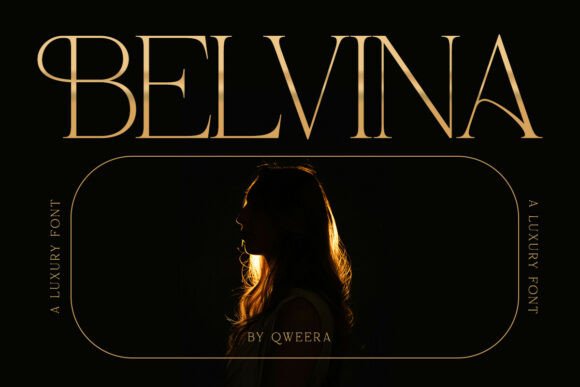
Belvina Font: Elevate Your Brand with Modern Luxury Serif Typography
In the world of typography, a font can make or break the visual identity of a brand. For those seeking to convey sophistication, elegance, and prestige, Belvina Font is an exceptional choice. This refined serif typeface is designed to bring a high-end aesthetic to any creative project, making it perfect for luxury branding, editorial layouts, and sophisticated visual presentations.
Key Features of Belvina Font
- Contemporary Elegance and Timeless Sophistication: Belvina embodies both modern refinement and classic sophistication, making it versatile for various design applications.
- Clean Lines, Sharp Contrast, and Graceful Curves: The font’s design ensures a polished and elegant appearance, suitable for high-end branding and editorial content.
- Sleek Ligatures and Stylish Alternates: With over 20 elegant alternates and classic ligatures, Belvina offers a wide range of creative possibilities for designers.
- Regular and Italic Styles: The font’s versatility is enhanced with both Regular and Italic styles, providing flexibility for different design requirements.
- Multi-Language Support: Belvina supports multiple Western European languages, making it a great choice for global brands.
Ideal Design Applications for Belvina Font
Belvina’s versatility and elegance make it suitable for a wide range of design applications, including:
- Fashion and Beauty Branding: Convey luxury and sophistication with a font that exudes elegance and refinement.
- High-End Logos: Create a lasting impression with a logo that embodies prestige and confidence.
- Premium Packaging: Elevate your brand’s packaging with a font that communicates luxury and quality.
- Wedding Invitations: Add a touch of sophistication and elegance to your wedding invitations.
- Magazine Titles: Create a lasting impression with a font that commands attention and exudes elegance.
- Sophisticated Social Media Graphics: Stand out on social media with a font that brings a high-end aesthetic to your visual content.
Benefits of Using Belvina Font
Belvina Font offers numerous benefits for designers and brands seeking to elevate their visual identity:
- Conveys Prestige and Confidence: The font’s elegant design ensures that your message is communicated with confidence and prestige.
- Enhances Brand Recognition: A unique and sophisticated font like Belvina can help differentiate your brand and increase recognition.
- Ensures Clarity and Readability: Belvina’s clean lines and classic design ensure that your message is communicated with clarity and readability.
In conclusion, Belvina Font is an exceptional choice for designers and brands seeking to elevate their visual identity with a modern luxury serif font. With its elegant design, versatile features, and technical excellence, Belvina is perfect for a wide range of design applications. Whether in print or digital, Belvina helps your message stand tall with grace, clarity, and undeniable style.